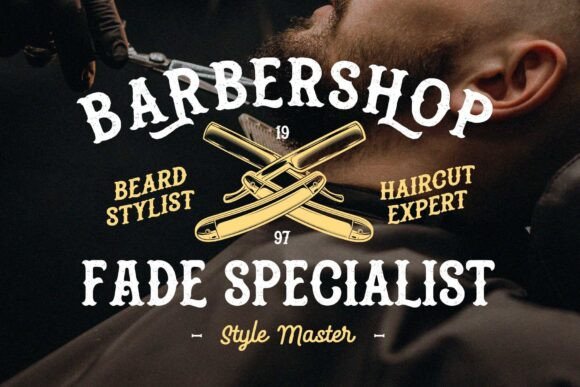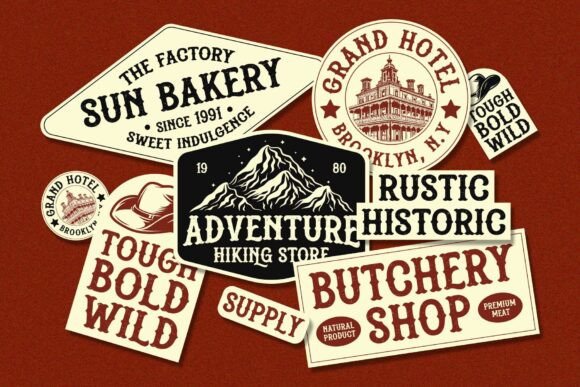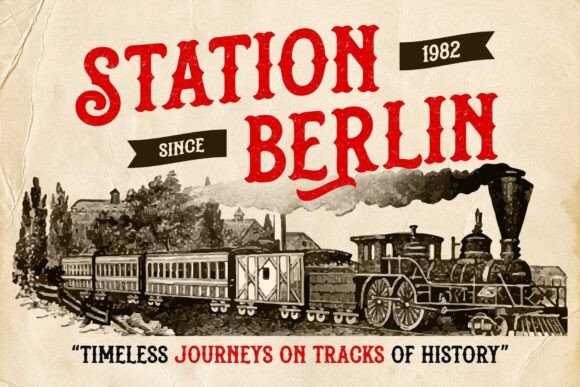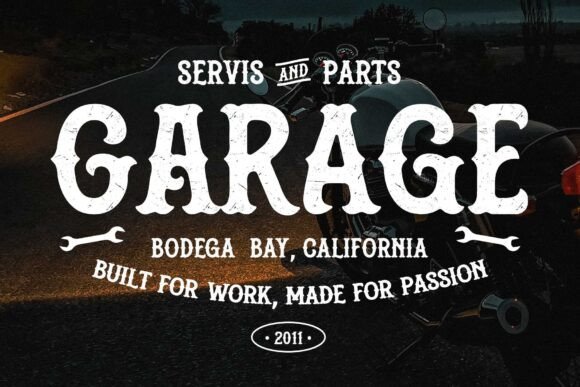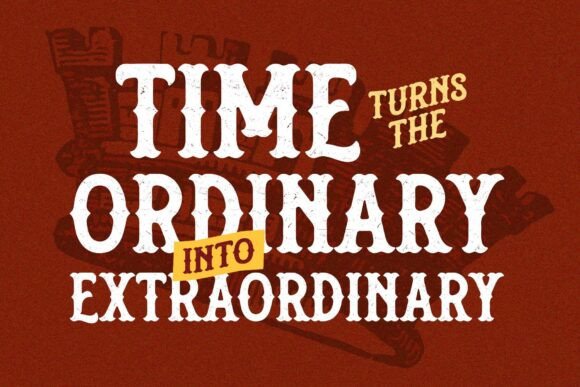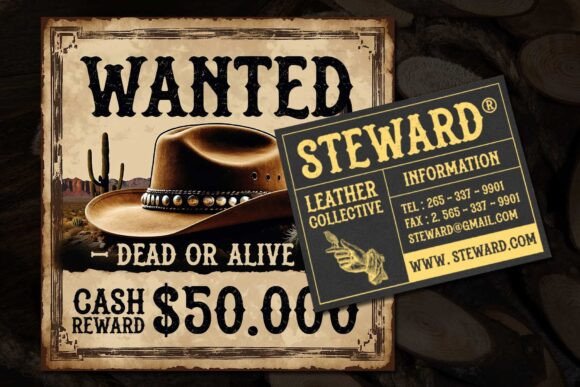
The Hunt for the Perfect Vintage Font: Discovering Gashroad
I’ll never forget the design project that led me to discover the Gashroad Font. I was working on a branding project for a craft beer company, and I needed a font that captured the essence of a vintage, rustic feel. I scoured the internet, tried countless fonts, but nothing seemed quite right. That was until I stumbled upon Gashroad – a handcrafted vintage font that instantly resonated with my design vision.
A Designer’s Honest Review: What I Love About Gashroad
So, what makes Gashroad so special? Here are a few things that I absolutely love about this font:
- ✨ Unique Grunge Effect: The subtle grunge texture adds a layer of depth and character to the font, giving it a truly authentic vintage feel.
- ✅ Flexibility: Gashroad offers a range of alternate characters, allowing you to customize your design and make it truly unique.
- 💪 Strong Serifs & Strokes: The bold serifs and strokes make this font perfect for headlines, titles, and labels.
- 🎨 Vintage Aesthetic: Gashroad effortlessly captures the essence of Western-style typography and vintage print labels, making it perfect for designs that require a nostalgic feel.
While Gashroad is an amazing font, there are a few minor quirks to be aware of:
- 🤔 Limited Multilingual Support: Gashroad’s character set is primarily focused on English and Western European languages.
- ⚠️ Glyph Overload: With so many alternate characters available, it can be overwhelming to navigate the glyph panel – but trust me, it’s worth the exploration!
The Story Behind Gashroad: Designer Inspiration
While the true story behind Gashroad’s creation remains a mystery, it’s easy to imagine a designer inspired by the rustic charm of Western typography and vintage labels. Perhaps they spent hours pouring over old books, posters, and advertisements, carefully crafting a font that would transport users to a bygone era. Whatever the inspiration, Gashroad’s unique blend of grunge and elegance has captured the hearts of designers worldwide.
| Font Name | Gashroad Font |
| Author | Arterfak Project |
| What type of projects is Gashroad best suited for? | Gashroad is perfect for posters, logos, logotypes, labels, apparel, social media, books, flyers, advertising, and more! |
| Does Gashroad support multiple languages? | While Gashroad’s character set is primarily focused on English and Western European languages, it may support other languages to a limited extent. |